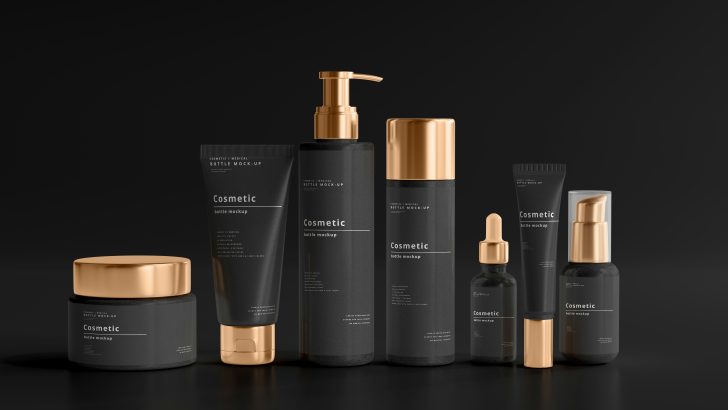
Best Skincare Fonts for Luxury Beauty Branding in 2026
The skincare industry continues to grow as consumers seek products that deliver quality, trust, and a premium experience. While product formulas are important, visual branding often determines a customer’s first impression.
Typography plays a major role in creating a memorable skincare brand. The right font can instantly communicate elegance, cleanliness, sophistication, and credibility.
In this guide, we’ll explore the best skincare fonts for luxury beauty branding in 2026.
Why Typography Matters in Skincare Branding
Customers often judge a skincare product before they use it.
Typography influences perceptions of:
- Quality
- Trust
- Luxury
- Professionalism
- Effectiveness
A strong typography system helps create consistency across every customer touchpoint.
What Makes a Great Skincare Font?
Elegant Letterforms
Luxury skincare brands often use refined typography that feels premium and sophisticated.
Clean Appearance
Beauty branding benefits from simple and uncluttered typography.
Timeless Design
The best skincare fonts remain modern and relevant for years.
Excellent Readability
Product labels should always be easy to read.
Popular Font Styles for Skincare Brands
Luxury Serif Fonts
Elegant serif fonts remain highly popular among premium beauty brands.
Perfect for:
- Luxury skincare products
- Beauty clinics
- Premium cosmetic brands
Editorial Fonts
Inspired by fashion magazines, editorial fonts create sophistication.
Minimal Sans Serif Fonts
Modern skincare brands often use clean sans serif typography.
High-Contrast Serif Fonts
These fonts communicate elegance and exclusivity.
Skincare Branding Trends in 2026
Quiet Luxury
Minimalist elegance continues to dominate beauty branding.
Clean Beauty Design
Simple typography supports modern skincare positioning.
Editorial Branding
Fashion-inspired layouts remain influential.
Luxury Minimalism
Premium brands increasingly favor understated visual identities.
Best Uses for Skincare Fonts
Typography can be applied across:
- Product packaging
- Beauty logos
- Labels
- Brand websites
- Social media graphics
- Marketing campaigns
Common Typography Mistakes
Avoid these mistakes:
- Using decorative fonts
- Poor readability on labels
- Inconsistent typography
- Following short-term trends
- Choosing fonts that don’t fit the brand
How to Choose the Right Skincare Font
Ask yourself:
- Does the font feel clean and professional?
- Does it reflect luxury and trust?
- Will it work on packaging?
- Does it appeal to the target audience?
The right typography helps strengthen brand perception.
Final Thoughts
Typography is a key part of successful skincare branding. The right font helps communicate quality, build trust, and create a premium customer experience.
Whether you’re launching a skincare line, beauty clinic, or cosmetic brand, investing in elegant typography can help elevate your visual identity and support long-term growth.